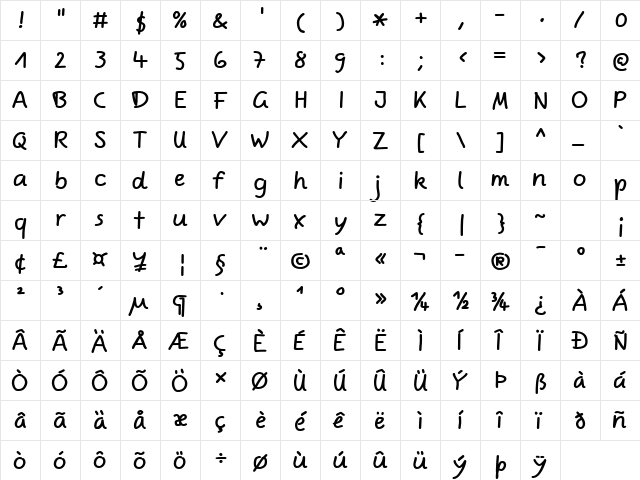
Comic Jens Free Pro Regular
| Foundry | Jens Kutilek |
| Designer | Jens Kutilek |
Design Context for Comic Jens Free Pro Typeface
Comic Jens Free Pro trades formality for fun, with bouncy, characterful letterforms that bring warmth and energy to any project.
Font Pairing: Pairs well with a rounded or humanist sans for body copy, maintaining the friendly tone without relying on Comic Jens Free Pro to carry extended reading.
Pro Tip: Avoid using Comic Jens Free Pro for long passages of text — it works best for headlines, labels, and short calls to action.